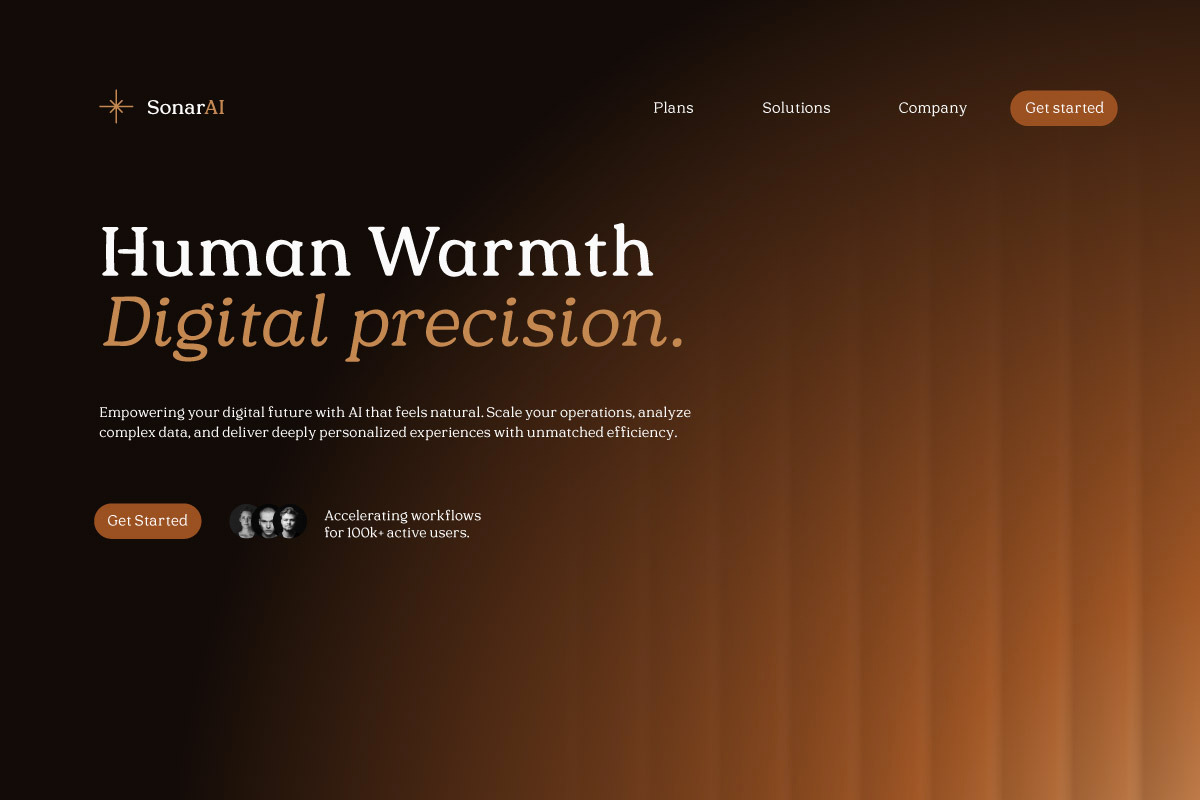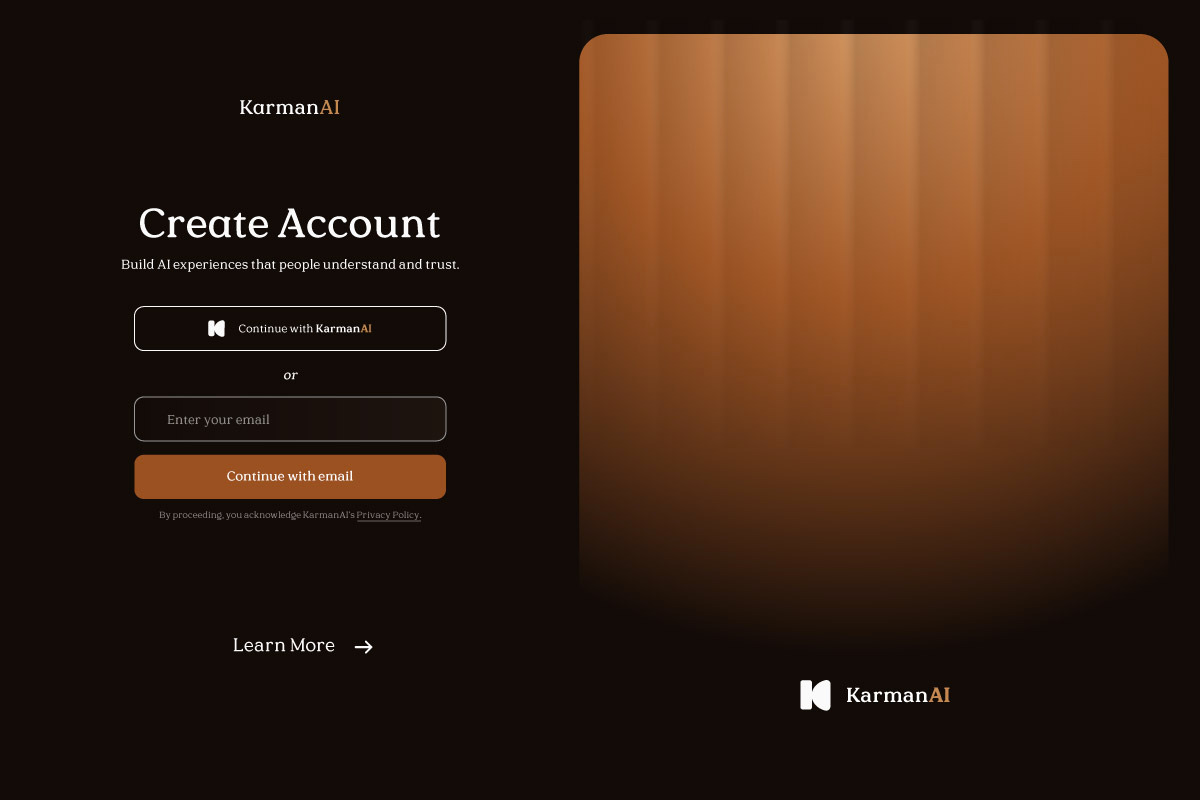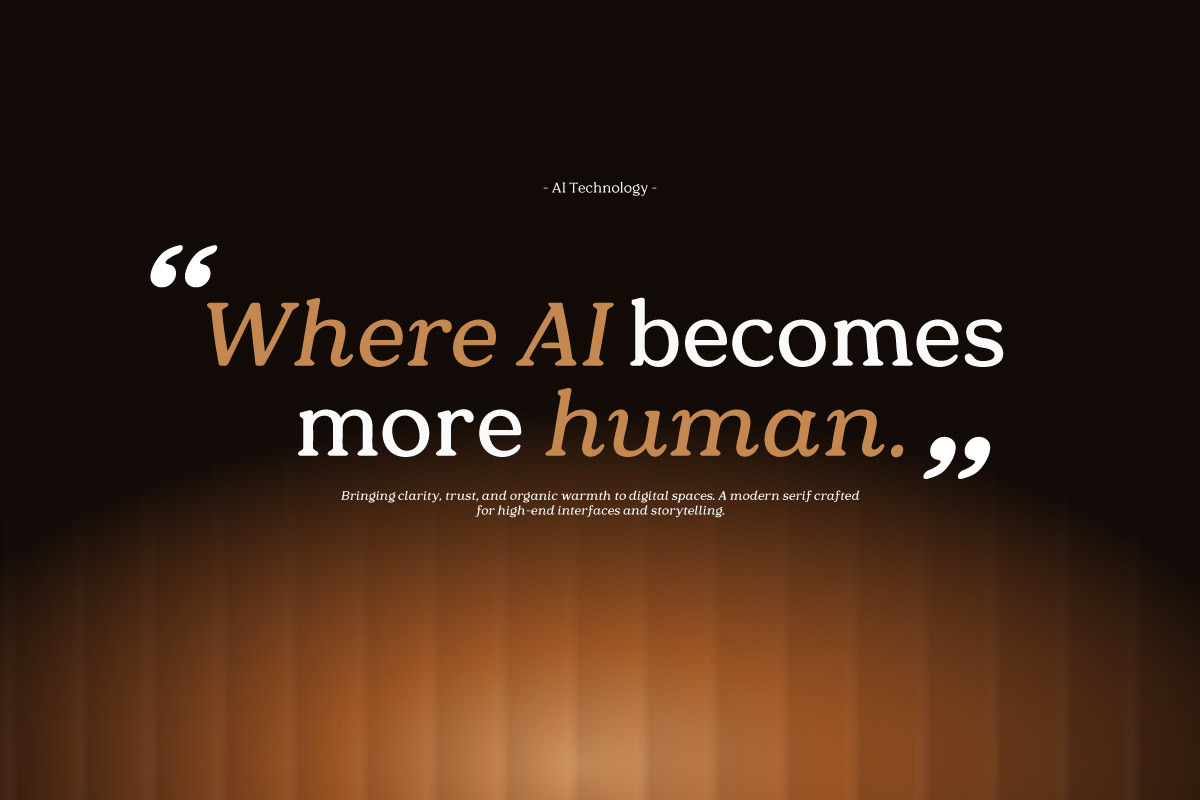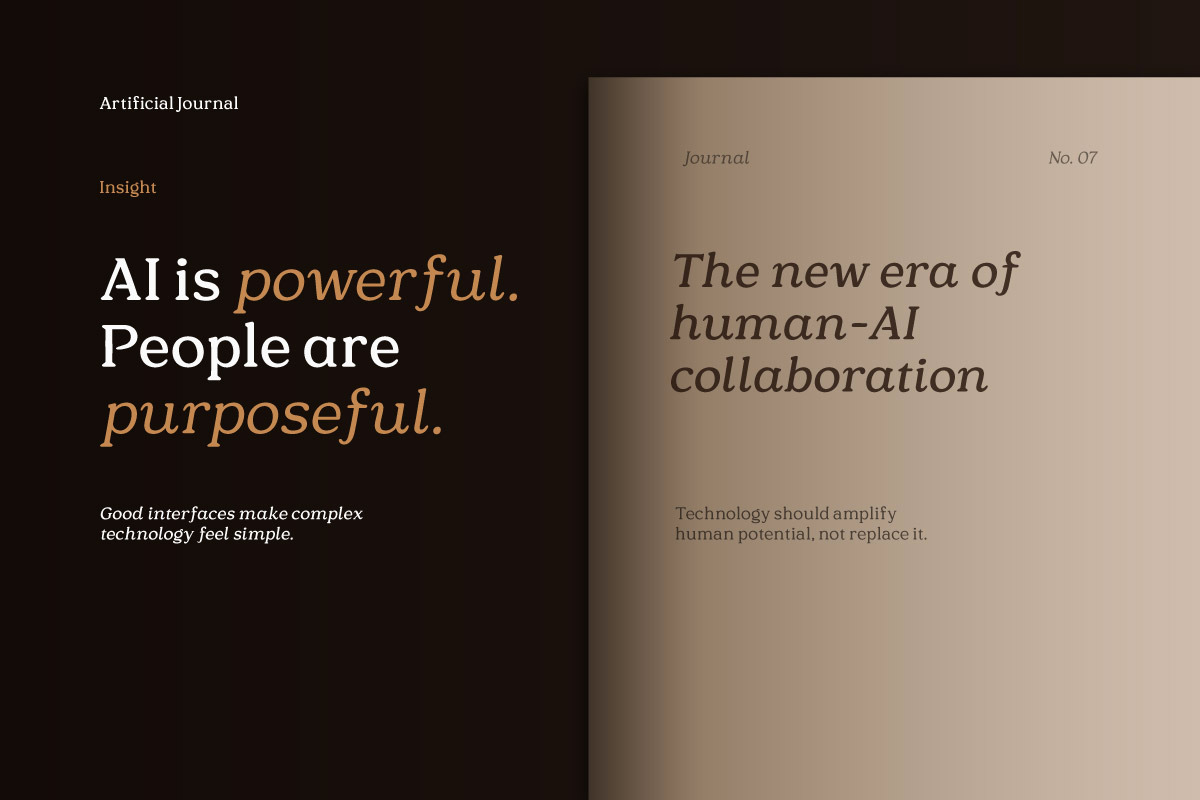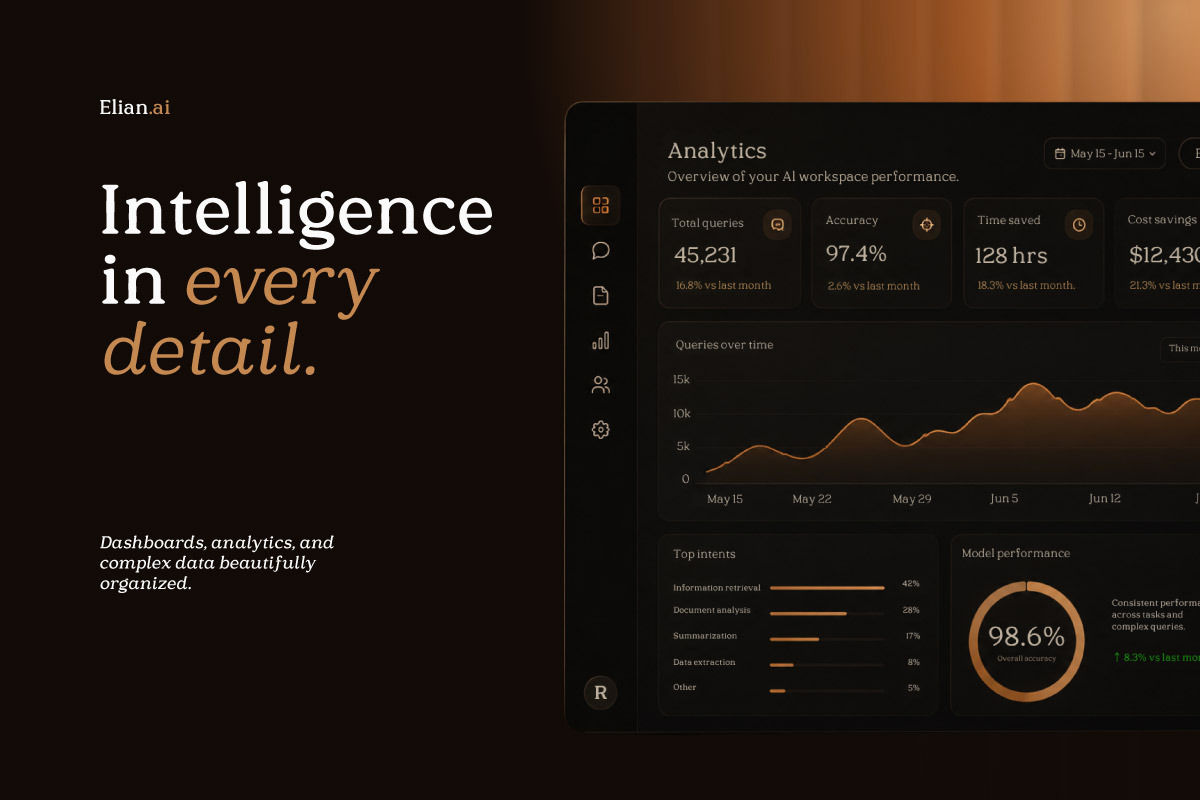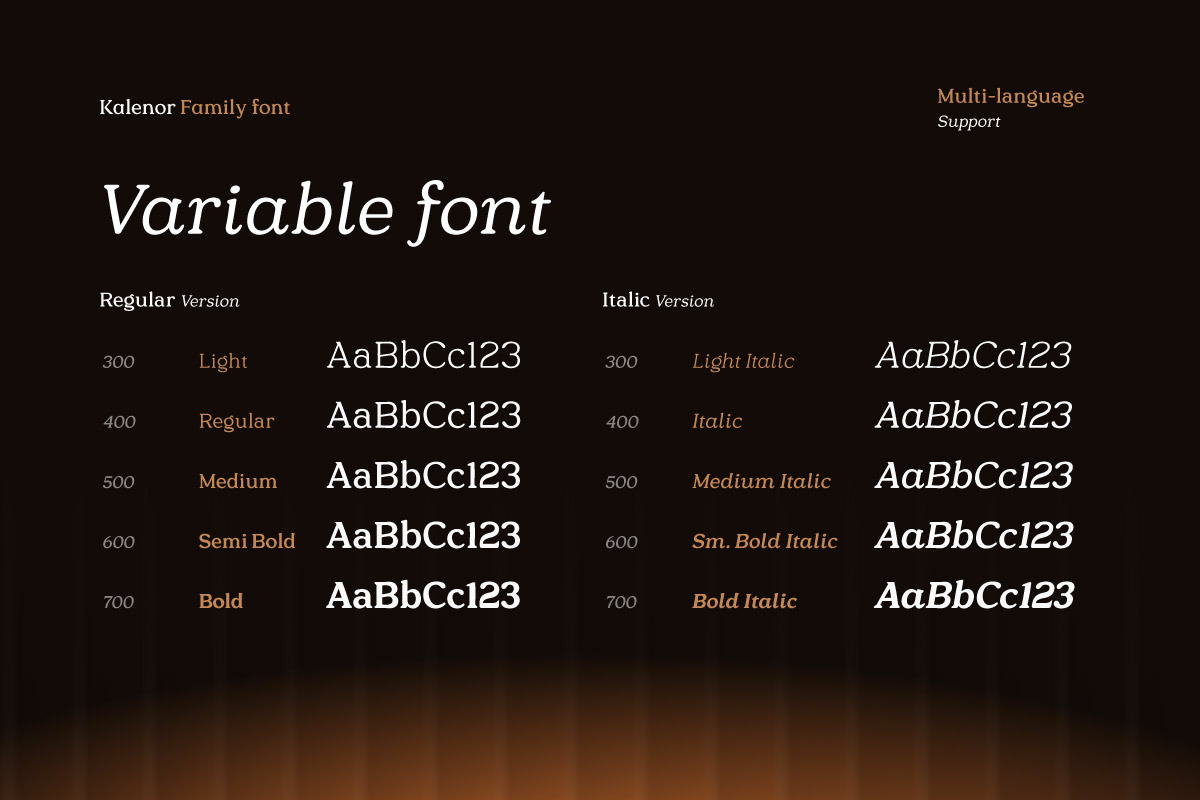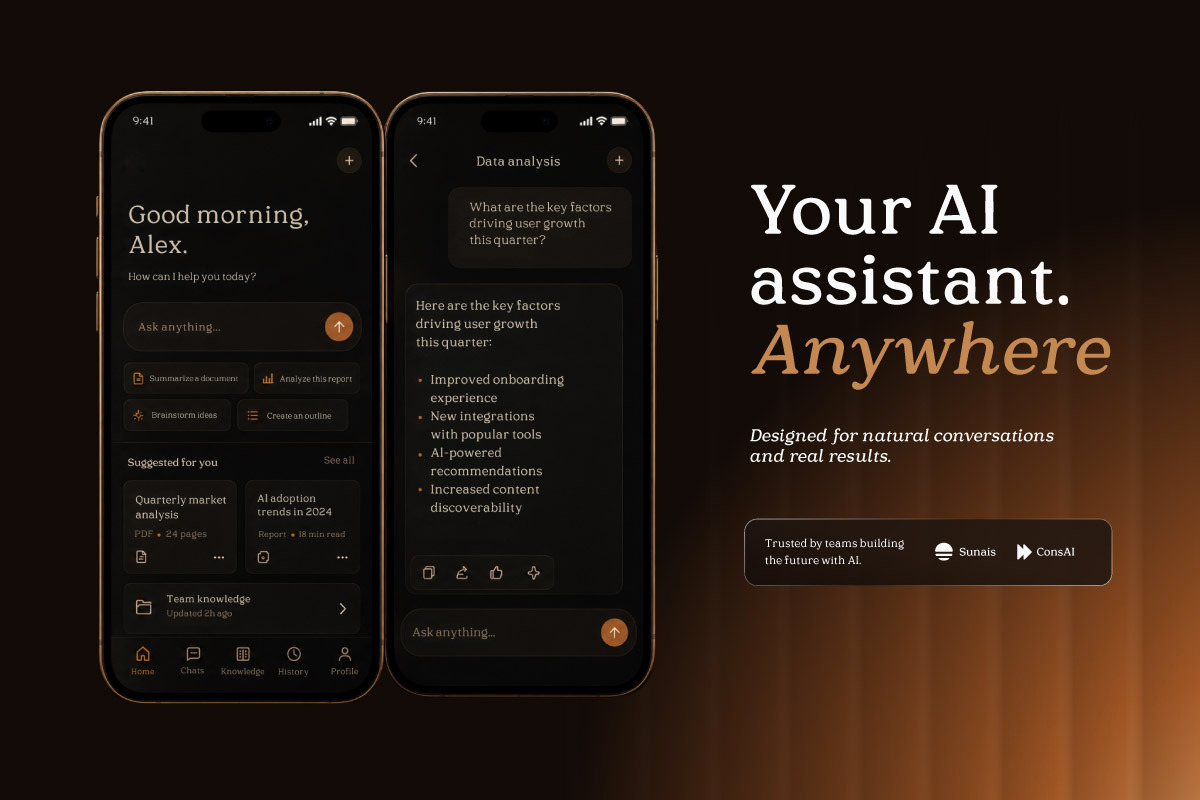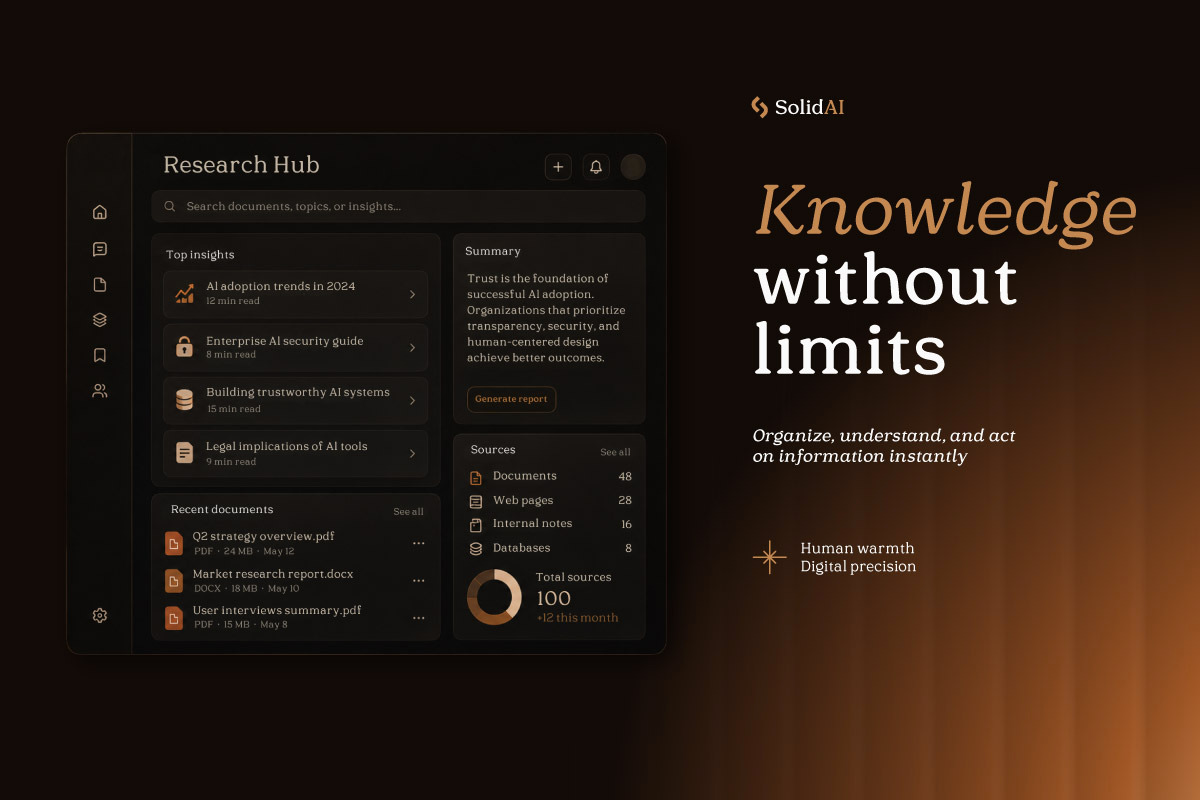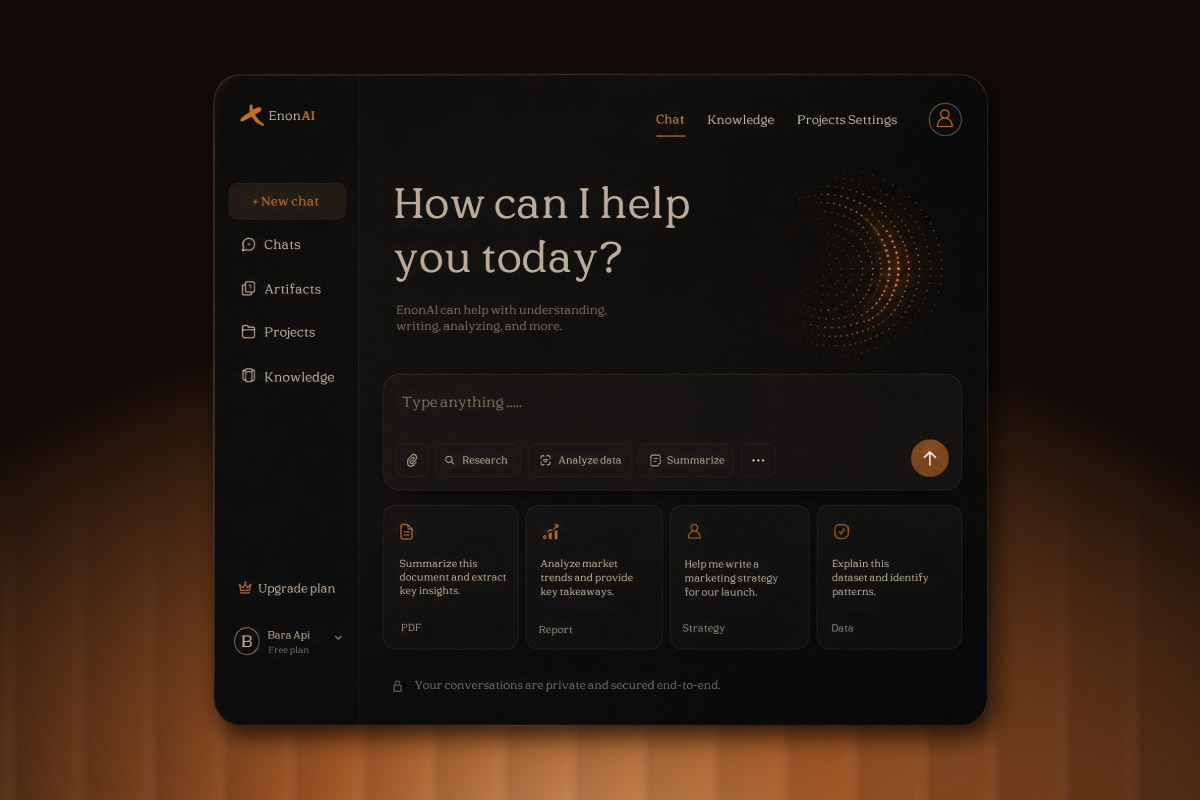
Kalenor OX - Ethical AI Serif
Kalenor OX – Ethical AI Serif is a premium modern serif typeface designed to create an elegant, trustworthy, and human-centered identity for Artificial Intelligence, technology, SaaS, and digital innovation brands. Combining timeless serif characteristics with contemporary styling, Kalenor OX delivers a refined visual presence that feels both sophisticated and approachable. Its balanced proportions, subtle contrast, and elegant serif details make it an excellent choice for premium branding and modern editorial design.
Perfect for AI startups, technology websites, OpenAI products, chatbot platforms, SaaS landing pages, dashboards, corporate presentations, editorials, and digital branding projects. Its outstanding readability allows headlines, logos, hero sections, UI/UX interfaces, and marketing materials to communicate professionalism, innovation, and credibility across both digital and print media.
Featuring 10 font styles, stylistic alternates, and multilingual support, Kalenor OX provides exceptional flexibility for modern design projects. The combination of timeless serif aesthetics and future-focused technology positioning makes it an ideal typeface for AI companies, software businesses, research organizations, creative agencies, and premium technology brands seeking a distinctive and memorable visual identity.
- Multilingual Support: Fully supports 85+ languages, including:
Afrikaans, Albanian, Asu, Basque, Bemba, Bena, Breton, Catalan, Chiga, Cornish, Croatian, Czech, Danish, Dutch, Embu, English, Esperanto, Estonian, Filipino, Finnish, French, Friulian, Galician, Gusii, Hungarian, Indonesian, Irish, Italian, Kabuverdianu, Kalenjin, Kamba, Kikuyu, Kinyarwanda, Latvian, Lithuanian, Lower Sorbian, Luo, Luxembourgish, Luyia, Machame, Makhuwa-Meetto, Makonde, Malagasy, Maltese, Manx, Meru, Morisyen, North Ndebele, Norwegian Bokmål, Norwegian Nynorsk, Nyankole, Oromo, Polish, Portuguese, Quechua, Romanian, Romansh, Rombo, Rundi, Rwa, Samburu, Sango, Sangu, Scottish Gaelic, Sena, Serbian, Shambala, Shona, Slovak, Slovenian, Soga, Somali, Spanish, Swahili, Swedish, Swiss German, Taita, Teso, Turkish, Upper Sorbian, Uzbek (Latin), Volapük, Vunjo, Walser, Zulu.